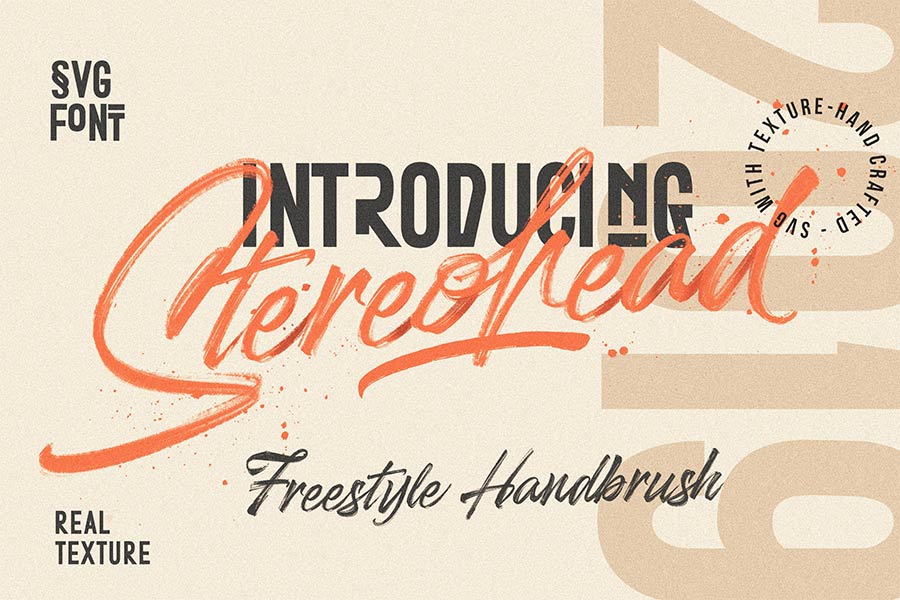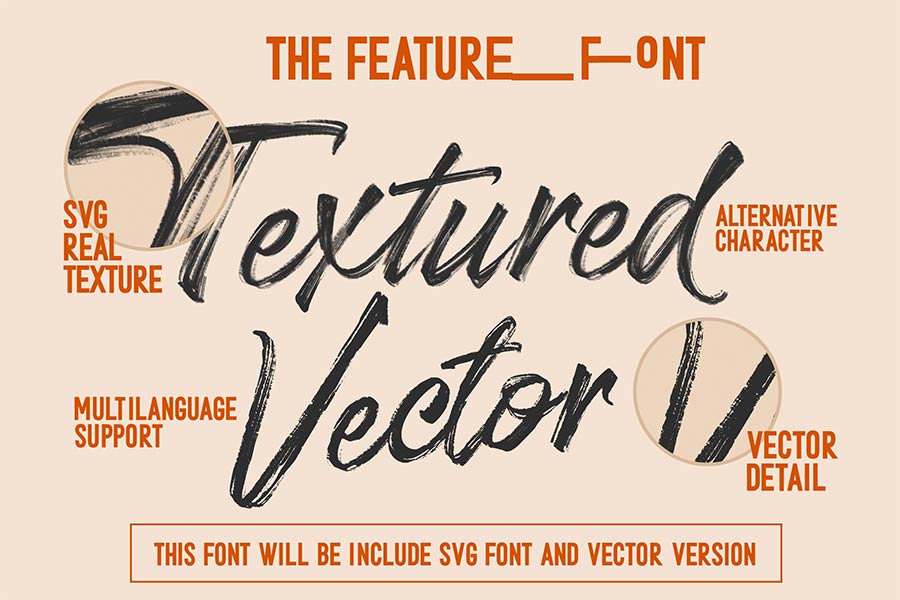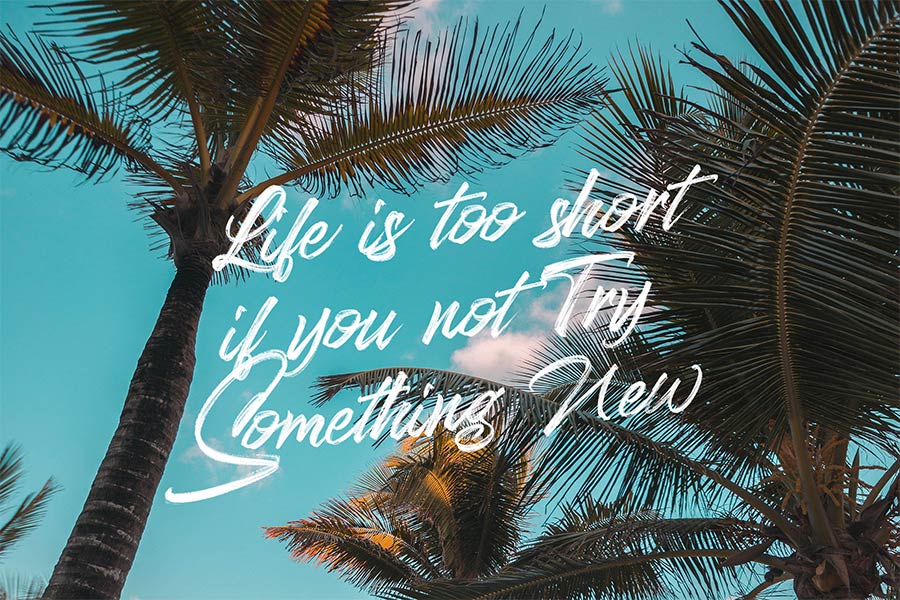
Stereohead Brush is a stylish brush font that is in SVG format. It has real hand-painted brush look, the texture of the brush strokes are well preserved in vector format.
Stereohead Brush is suitable for signature, logos, handwritten quotes, packaging, posters, editorial design and more. The demo version is free and comes with basic character set, only for personal use.